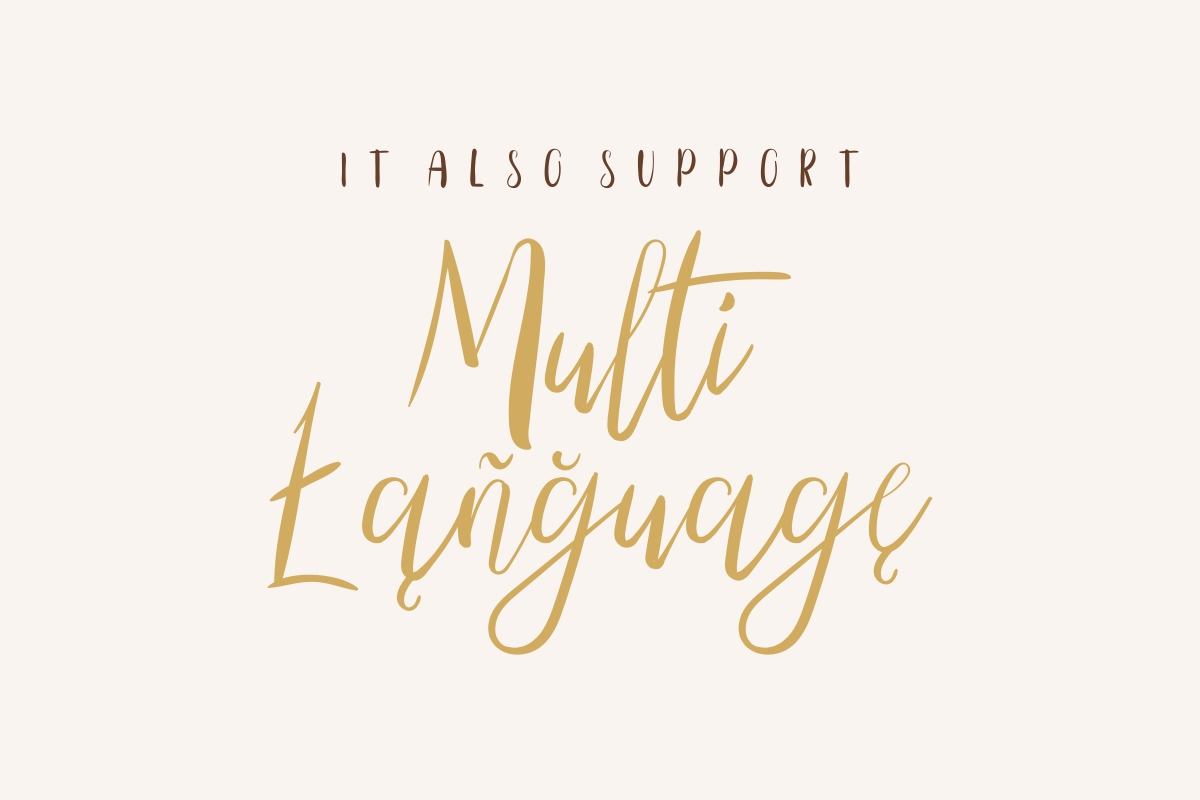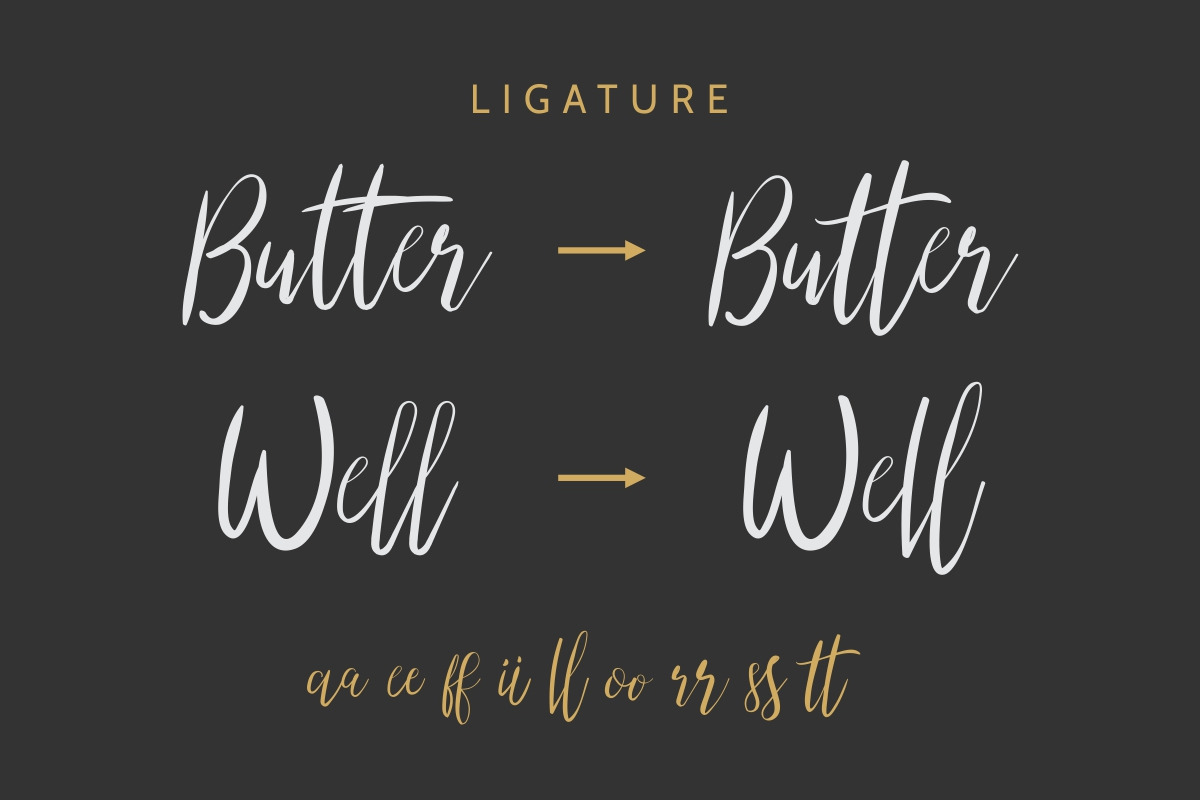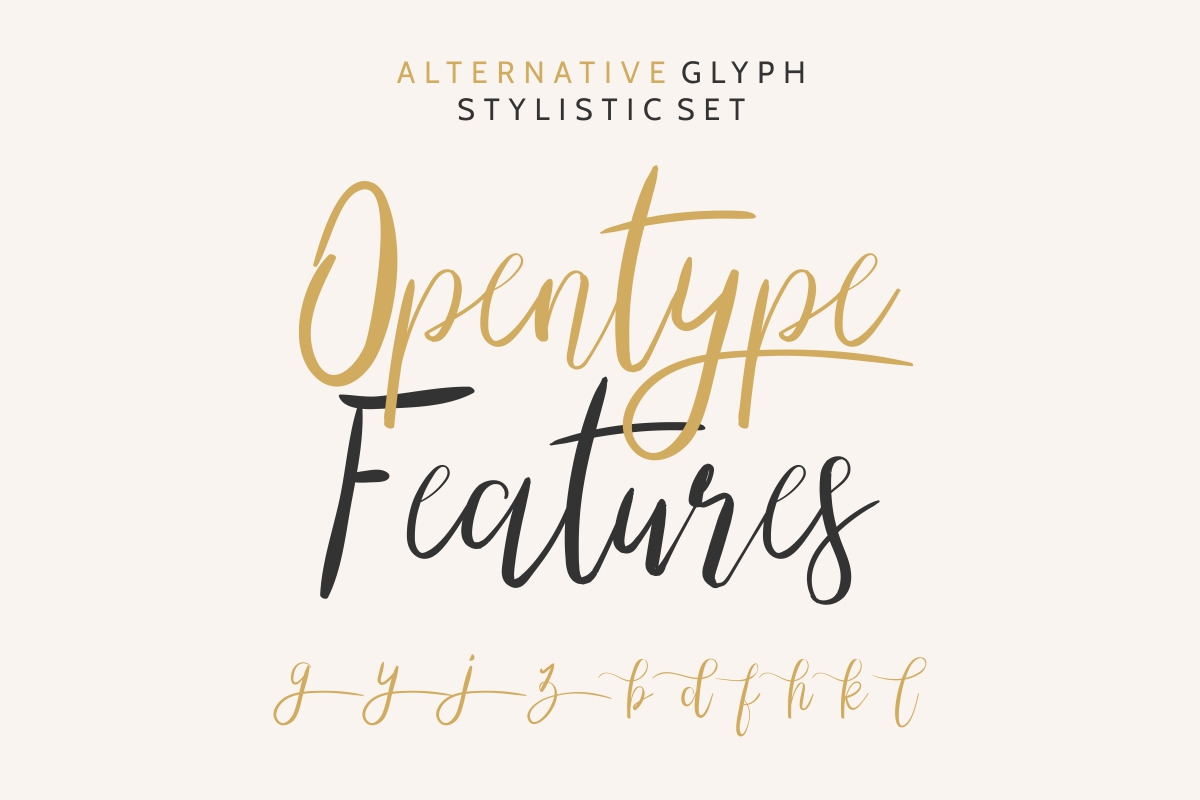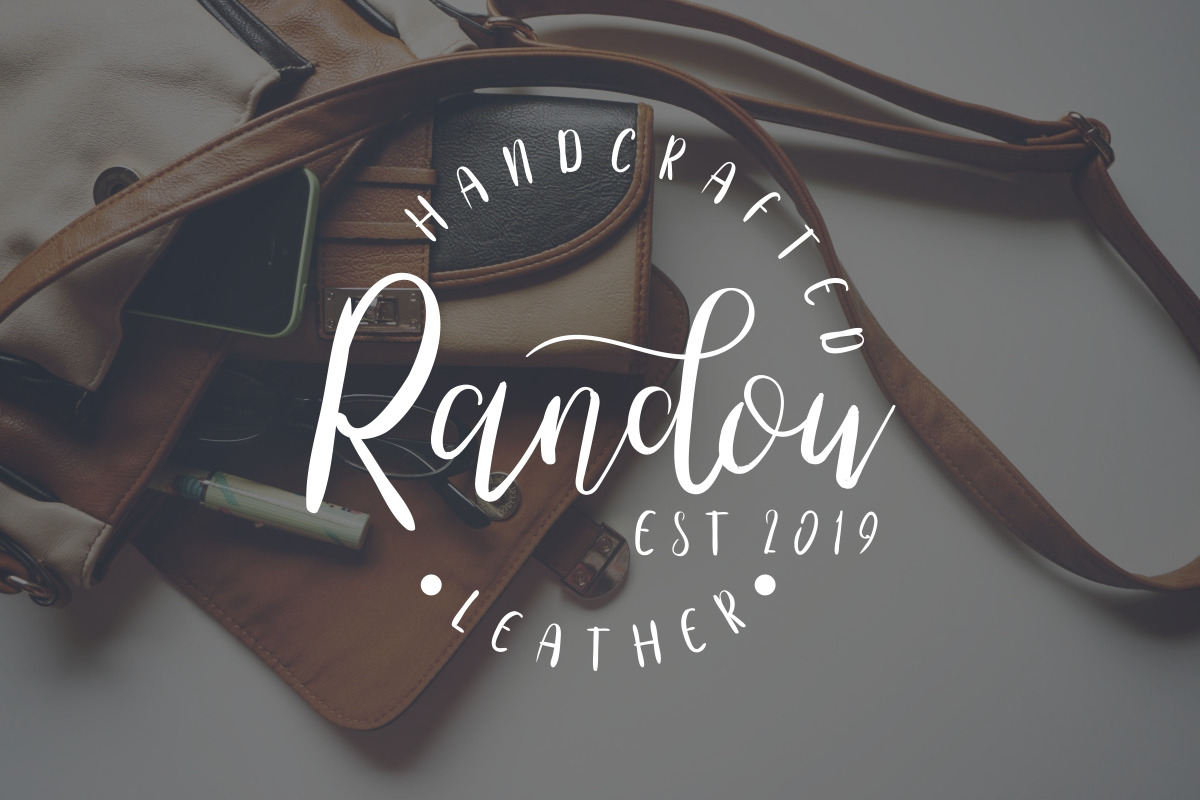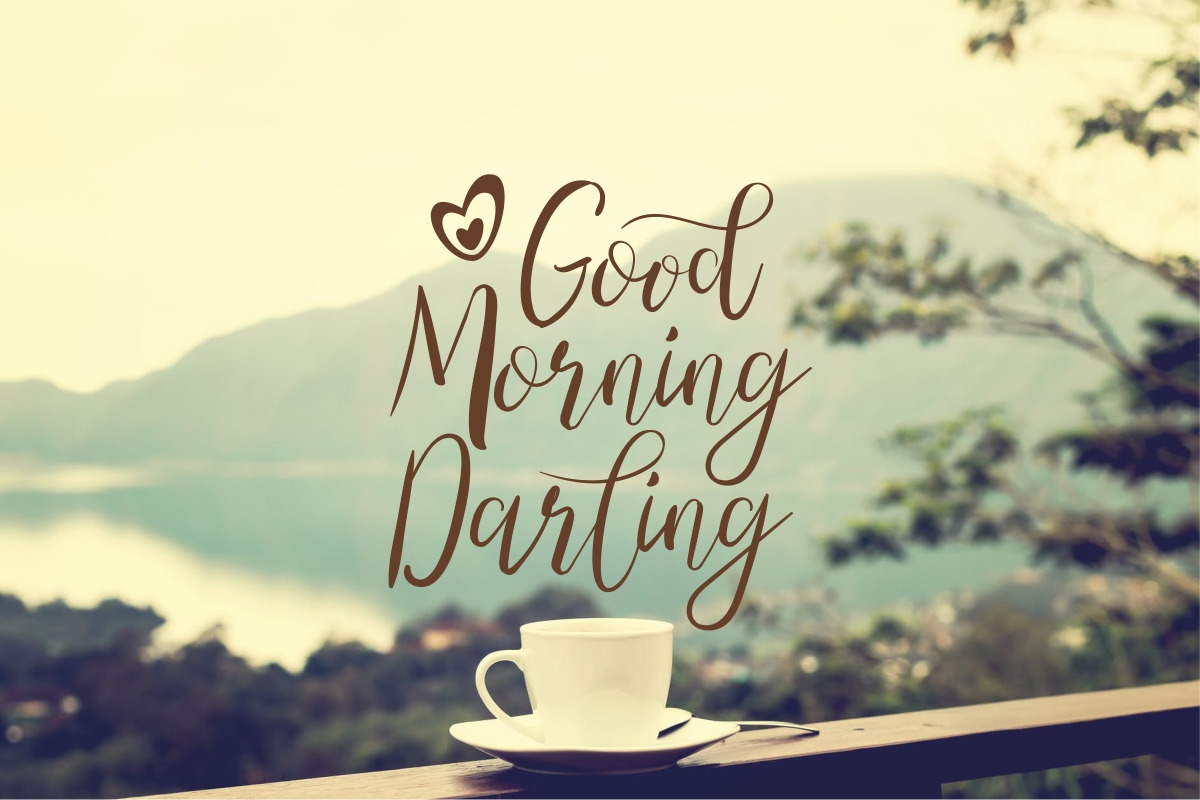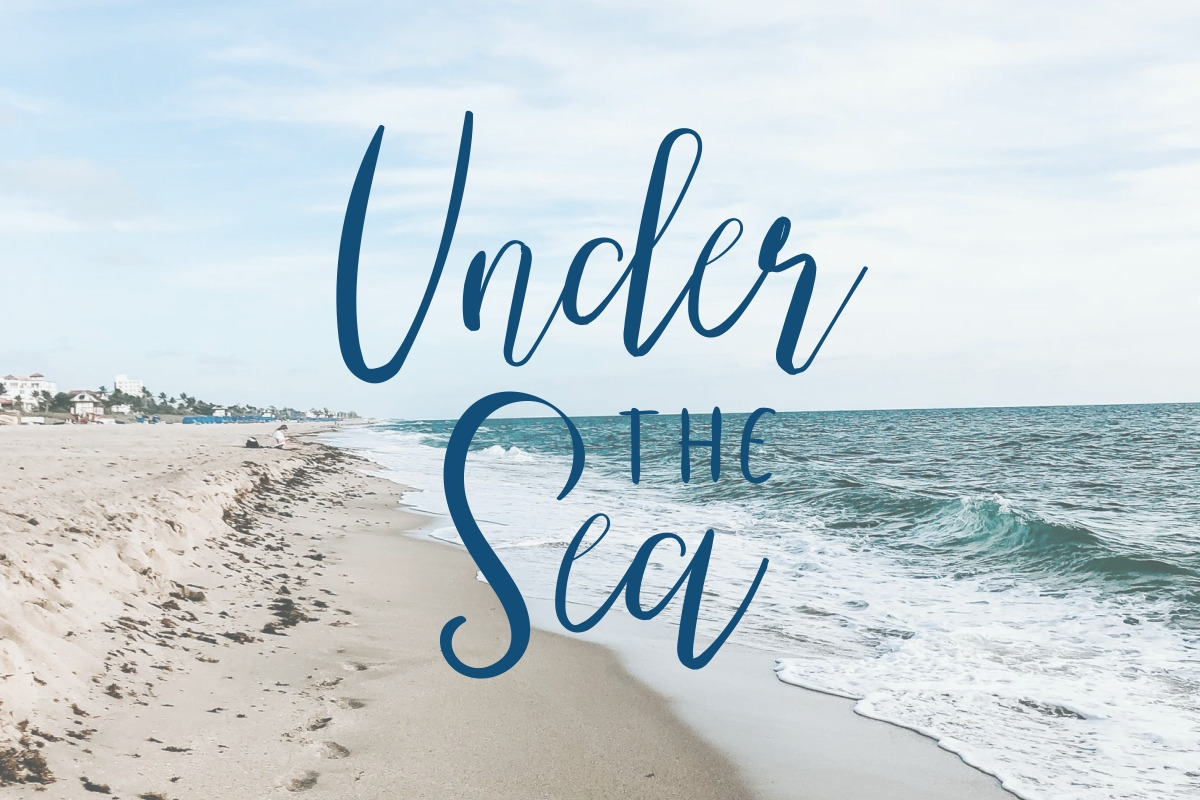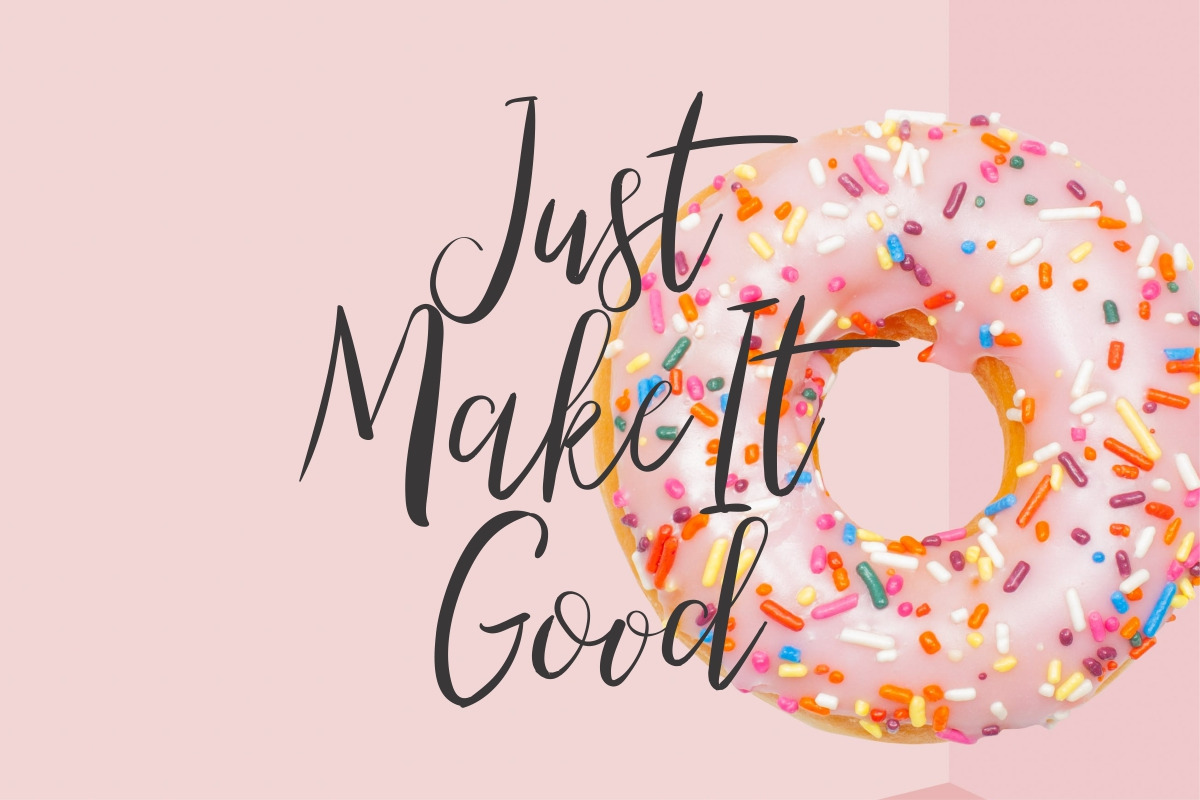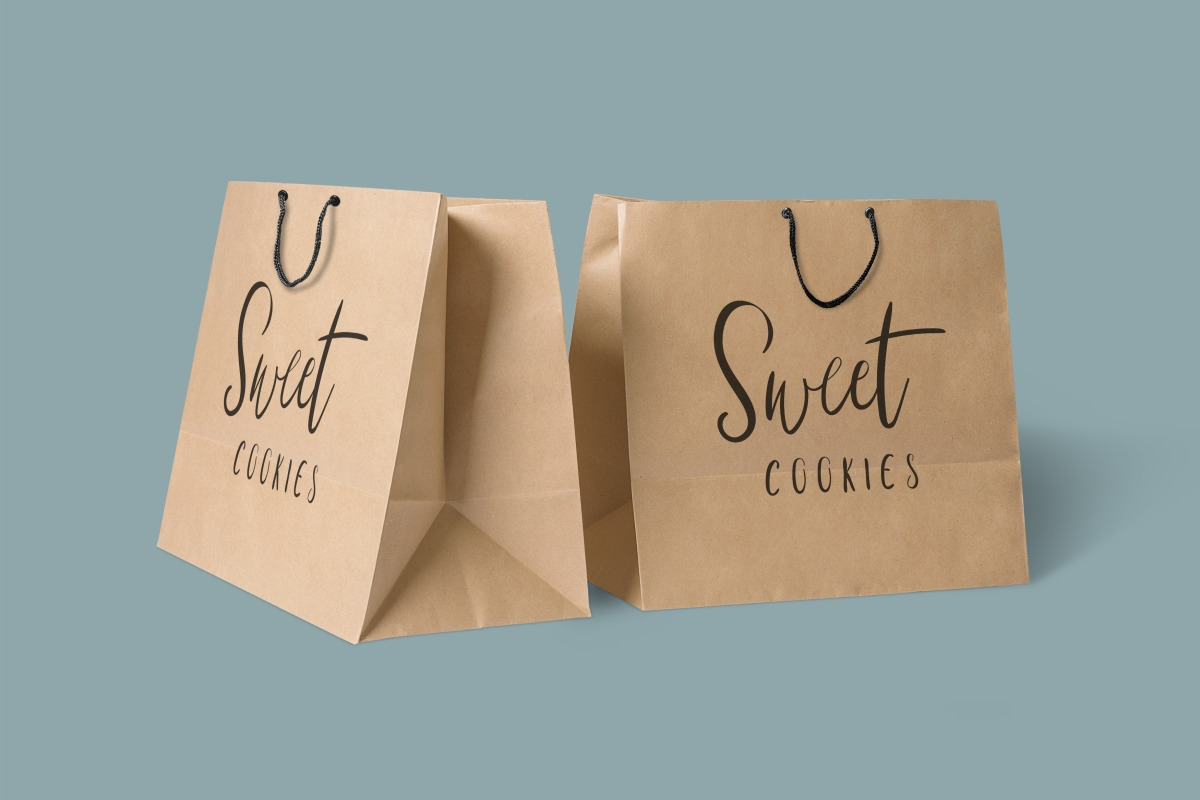
The Right Attitude Font Duo
What’s up Everyone! Introducing our newest font : TheRightAttitude ! This is a new duo font : Calligraphy Script and Sans Display